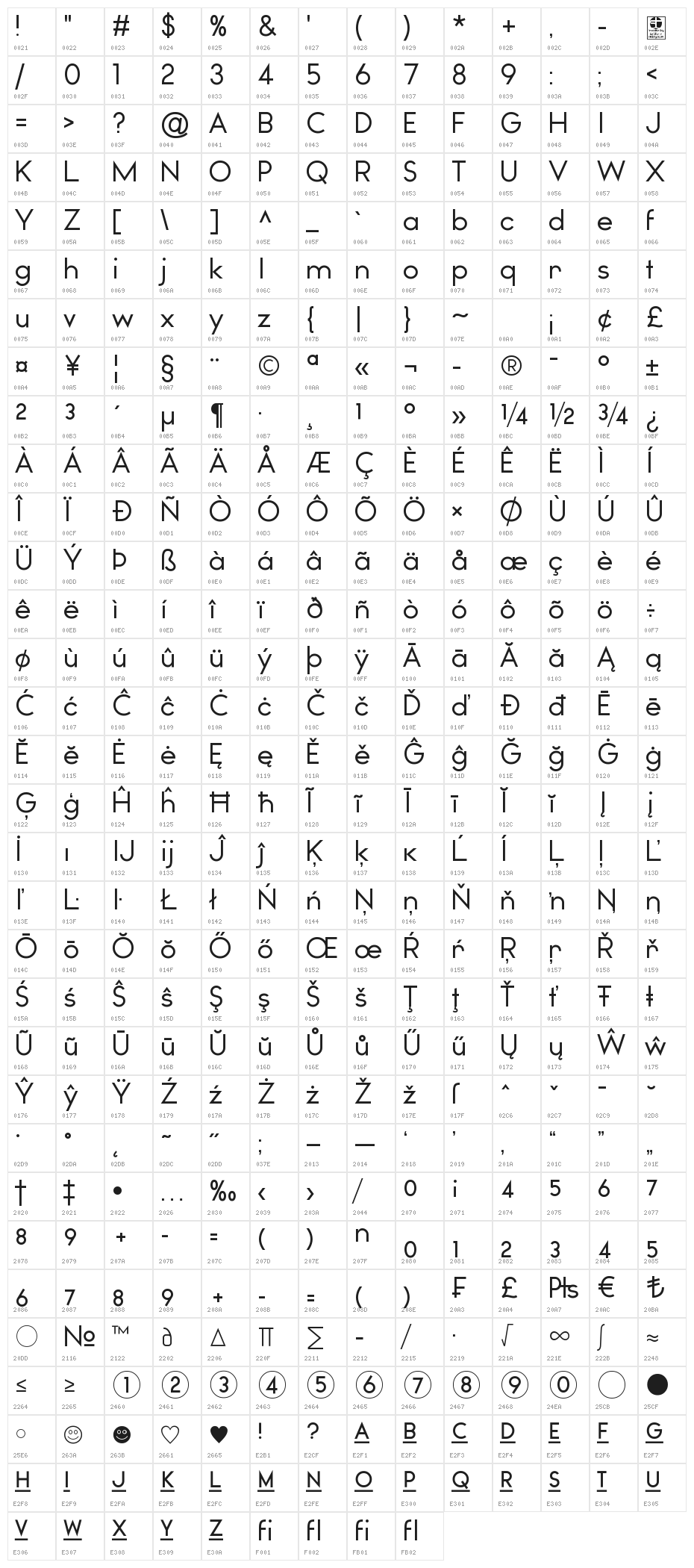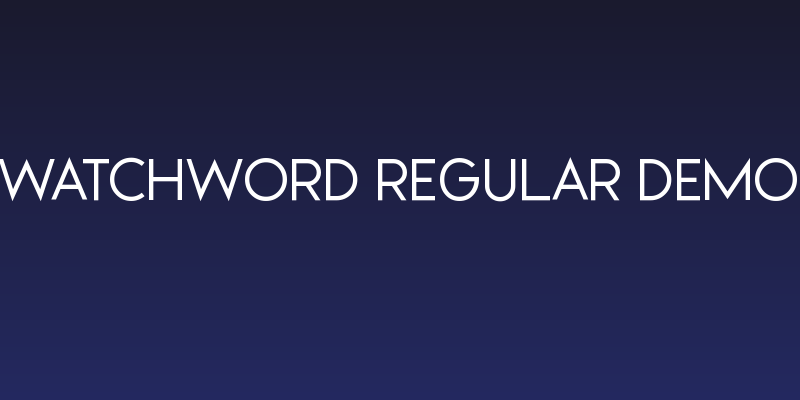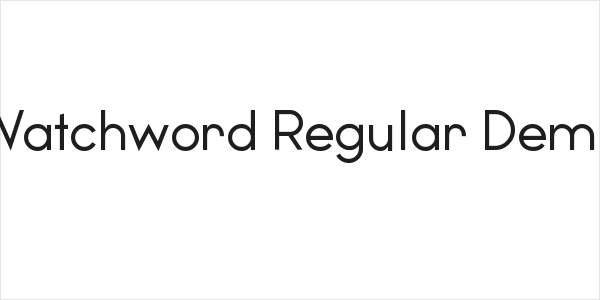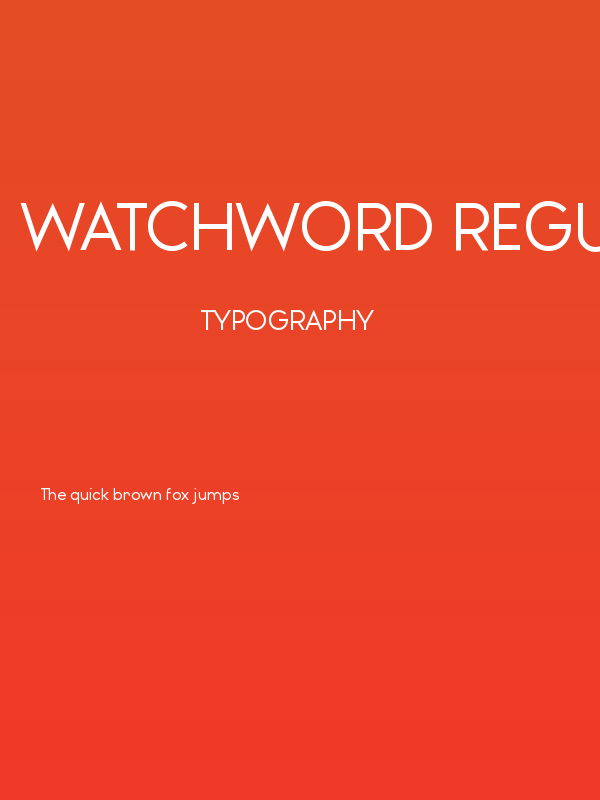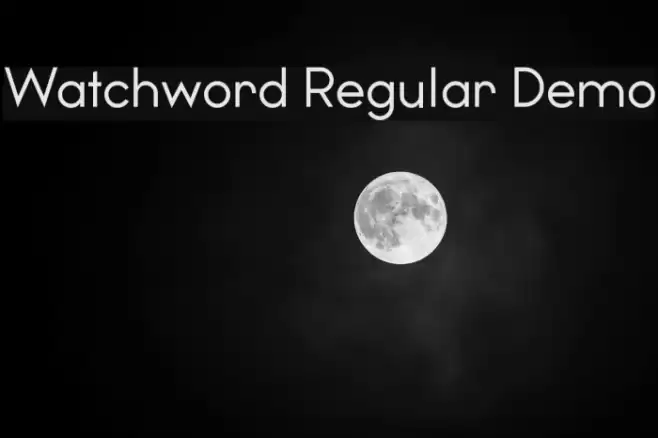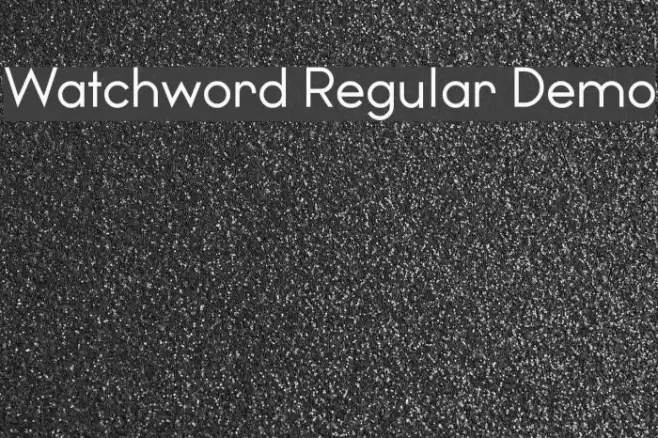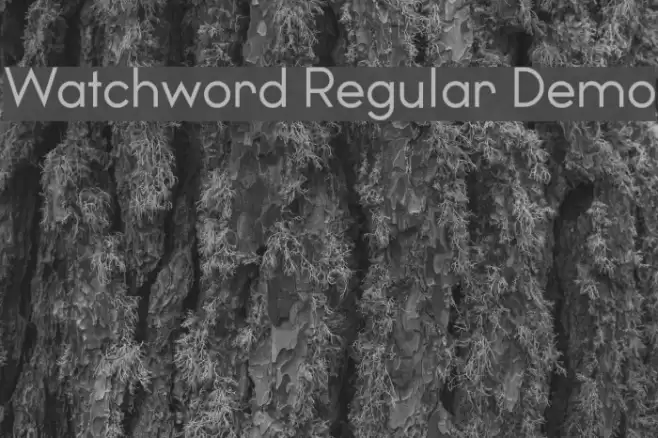
Watchword Regular Demo Font
Watchword Regular Demo Description
This font features a clean and modern sans-serif style with a geometric structure. The characters are uniform in width, providing a balanced and harmonious appearance. The uppercase letters are bold and assertive, while the lowercase letters maintain a consistent height, enhancing readability. Numbers are clear and distinct, making them suitable for various applications. The special characters are well-defined, ensuring versatility in design projects. Overall, this font exudes a contemporary and professional vibe, making it ideal for digital and print media.
| Use Case | Headlines, Body text, Logos |
| Proposed Projects | Ideal for branding, web design, advertising, and editorial layouts. |